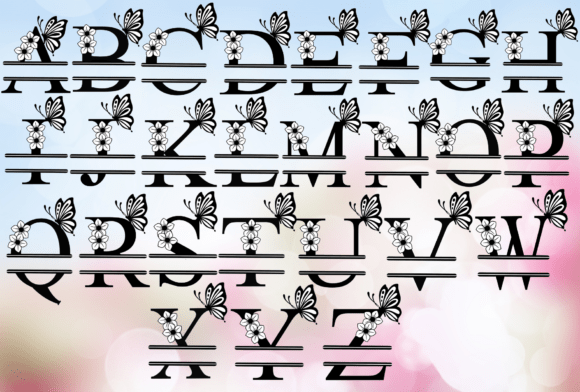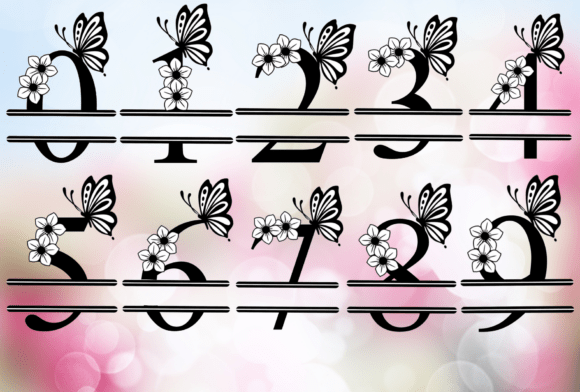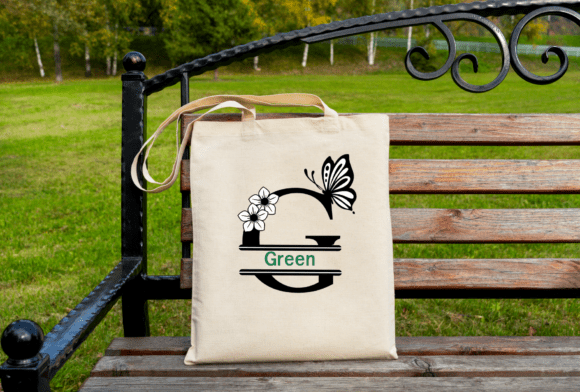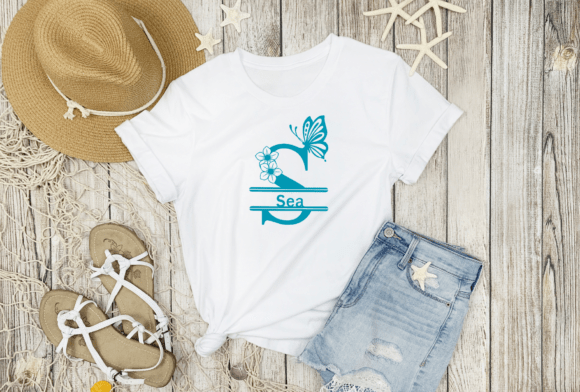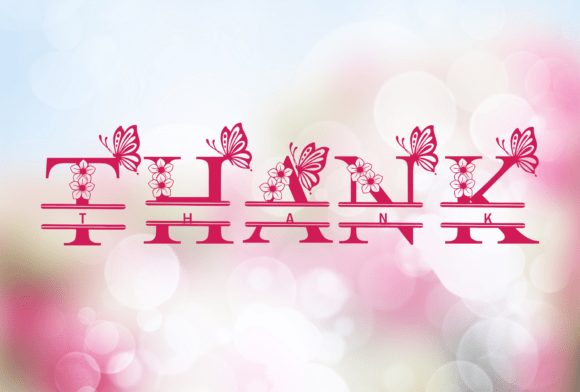
Introducing Beautyful Font: Elevate Your Designs with Organic Elegance
Are you tired of using the same old fonts in your designs? Do you want to add a touch of elegance and sophistication to your creations? Look no further than Beautyful Font, an organic and beautiful decorative font that is sure to take your designs to the next level.
What is Beautyful Font?
Beautyful Font is a stunning decorative font that features lovely ornaments, making it perfect for a wide range of design projects. Whether you’re working on a branding campaign, a website, or a craft project, this font is sure to be an incredible asset to your font library.
Unique Characteristics of Beautyful Font
So, what sets Beautyful Font apart from other fonts? Here are just a few of its unique characteristics:
- Organic feel: Beautyful Font has an organic, handmade feel that gives it a warm and inviting tone.
- Lovely ornaments: The font features beautiful ornaments that add a touch of elegance to any design.
- Versatile: Beautyful Font can be used for a wide range of design projects, from branding and advertising to crafting and scrapbooking.
How to Use Beautyful Font in Your Designs
Beautyful Font is incredibly easy to use, and can be incorporated into a wide range of design projects. Here are a few ideas to get you started:
- Branding and advertising: Use Beautyful Font to create stunning logos, business cards, and advertisements that will help your brand stand out.
- Website design: Add a touch of elegance to your website with Beautyful Font, perfect for headings, titles, and other design elements.
- Crafting and scrapbooking: Use Beautyful Font to add a personal touch to your craft projects, such as scrapbooking, card making, and journaling.
Benefits of Using Beautyful Font
So, why should you choose Beautyful Font for your design projects? Here are just a few benefits:
- Elegance and sophistication: Beautyful Font adds a touch of elegance and sophistication to any design, making it perfect for high-end brands and luxury products.
- Unique and eye-catching: The font’s unique ornaments and organic feel make it stand out from other fonts, ensuring that your designs will be noticed.
- Time-saving: With Beautyful Font, you can create stunning designs in no time, saving you time and effort.
Tips for Getting the Most Out of Beautyful Font
Here are a few tips for getting the most out of Beautyful Font:
- Experiment with different sizes and colors: Play around with different sizes and colors to find the perfect combination for your design.
- Use it sparingly: While Beautyful Font is stunning, it’s best to use it sparingly to avoid overwhelming your design.
- Pair it with other fonts: Experiment with pairing Beautyful Font with other fonts to create a unique and eye-catching design.
| Font Name | Beautyful Font |
| Author | Candygirl Art |
In conclusion, Beautyful Font is a stunning decorative font that is sure to elevate your designs to the next level. With its organic feel, lovely ornaments, and versatility, it’s perfect for a wide range of design projects. Whether you’re a designer, crafter, or DIY enthusiast, Beautyful Font is an incredible asset to your font library.